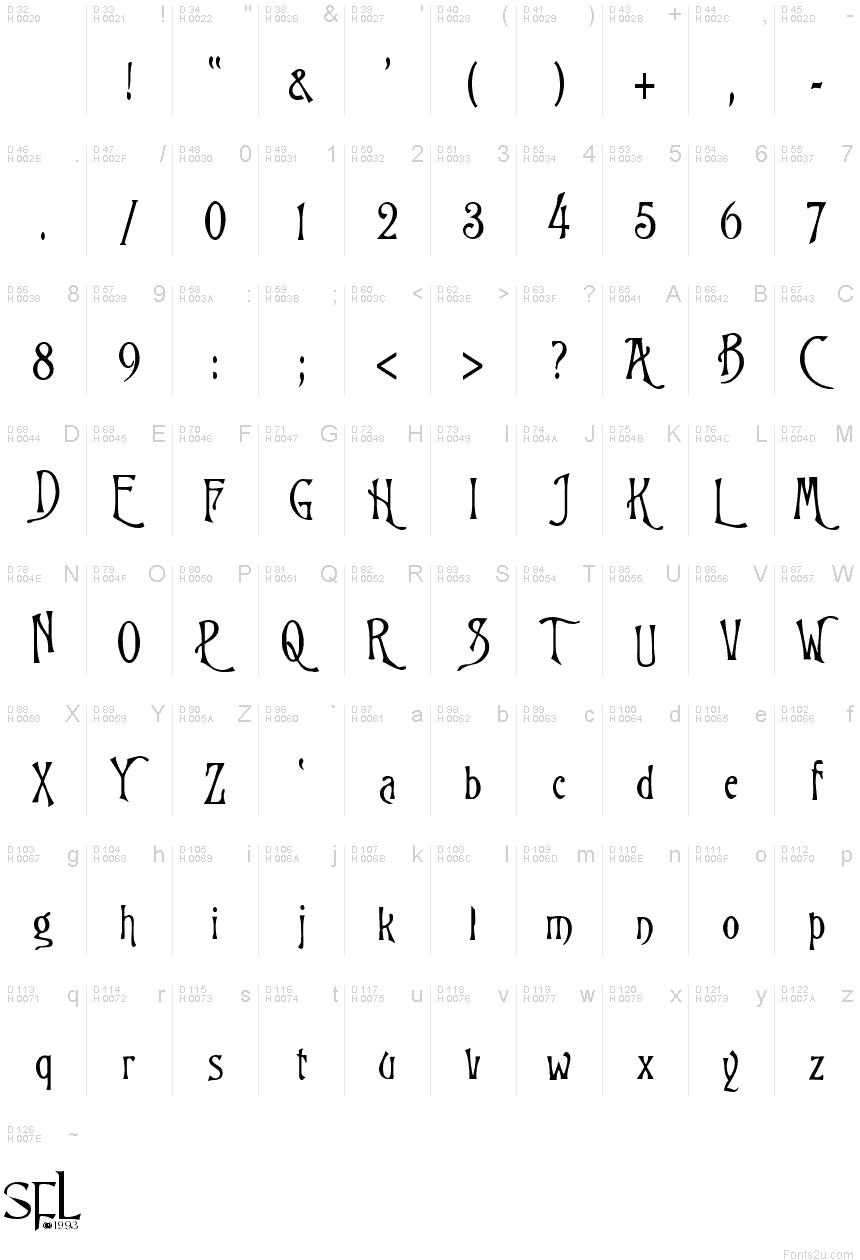
Goodfellow
Goodfellow font by David F. Nalle is a free retro serif typeface with a mischievous, storybook edge. Its tall, tapering strokes and irregular, slightly eroded contours feel like ink pulled from an old folio, giving your titles a textured, lived-in charm. The rhythm is playful but still readable, so it grabs attention without turning into pure ornament.
Using Goodfellow, you can bring character to fantasy book covers, tabletop RPG titles, pub or tavern signage, festival posters, craft beverage labels, and theatrical programs. The quirky curves and narrow forms create a strong wordmark, especially at larger sizes where the roughness can breathe. Pair this free font with a clean geometric sans for body text to keep layouts balanced and contemporary.